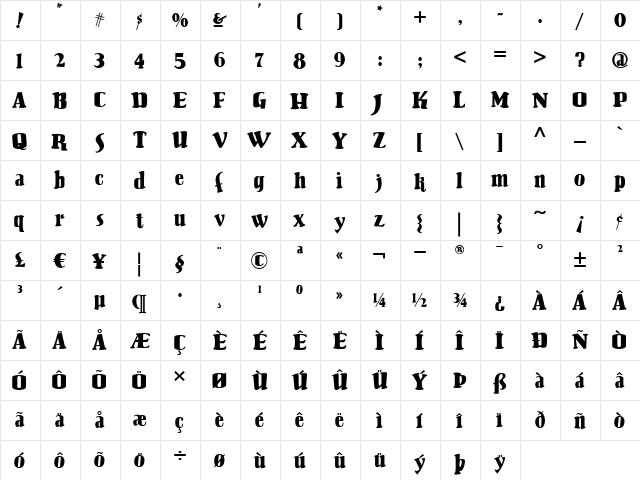
Our Pal Hal NF Medium
| Foundry | Nick's Fonts |
| Designer | Nick Curtis |
Design Context for Our Pal Hal NF Typeface
Our Pal Hal NF is a composed and adaptable typeface that performs quietly and consistently across a wide range of design contexts.